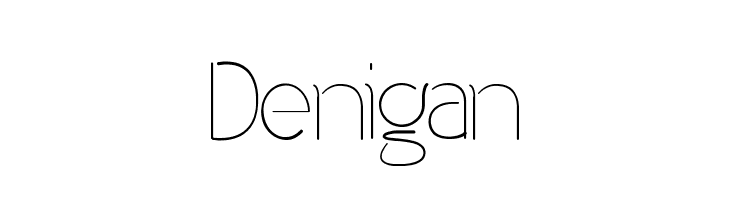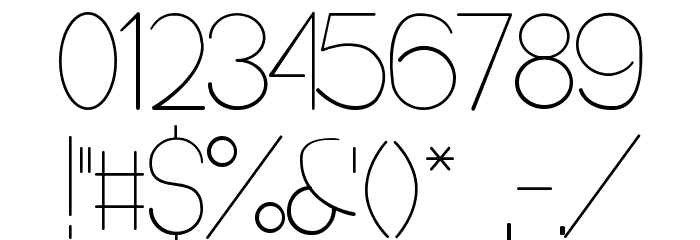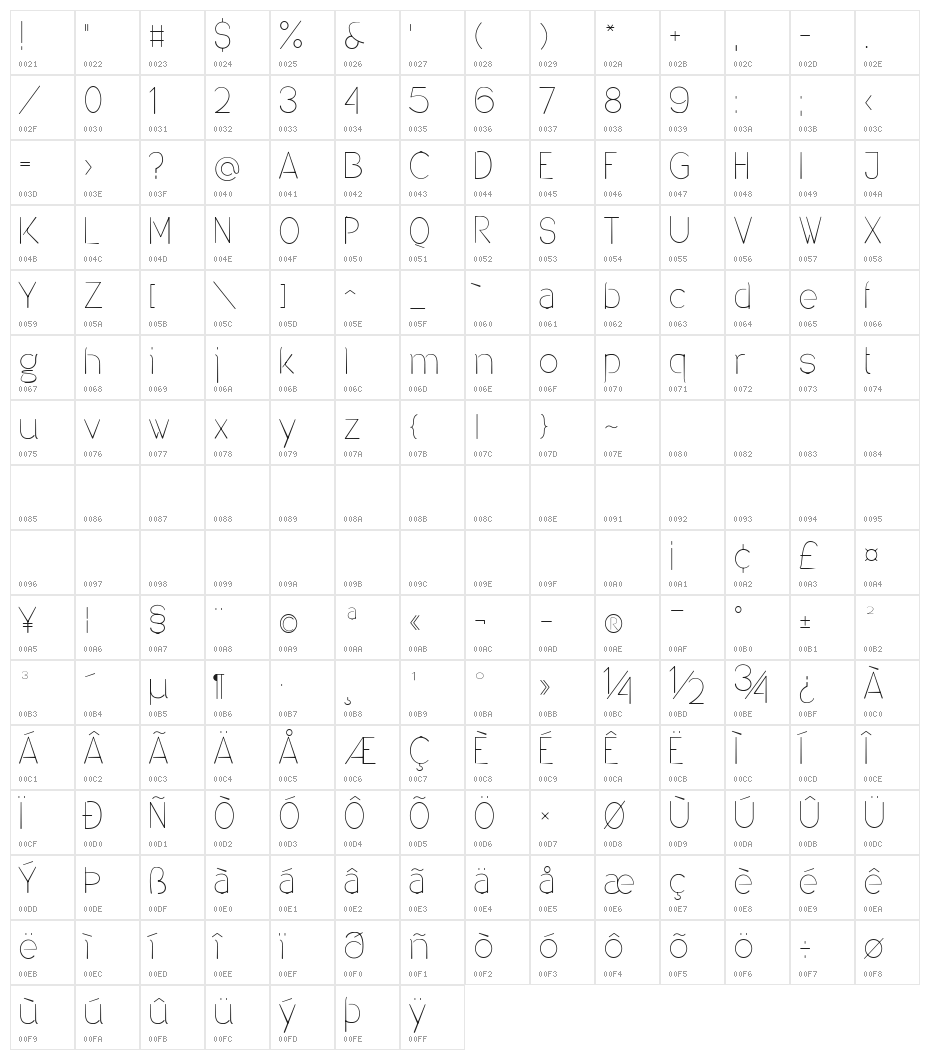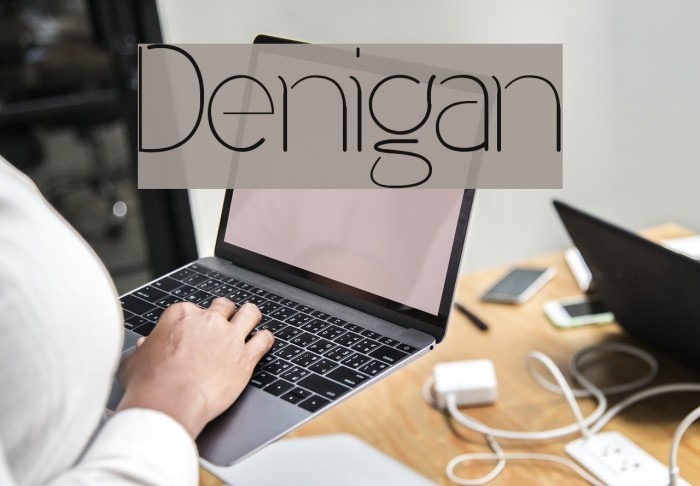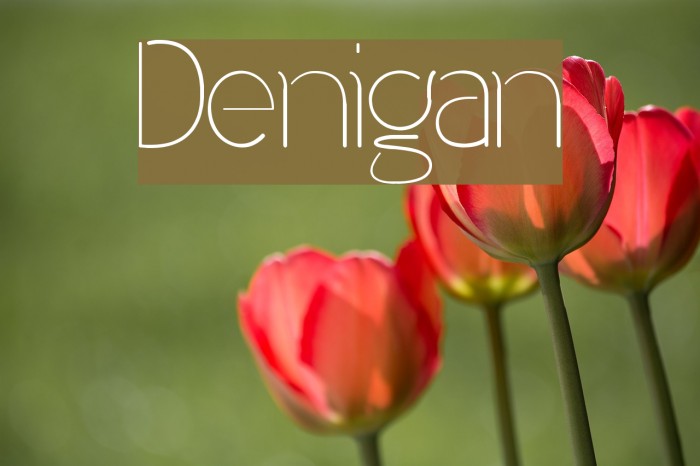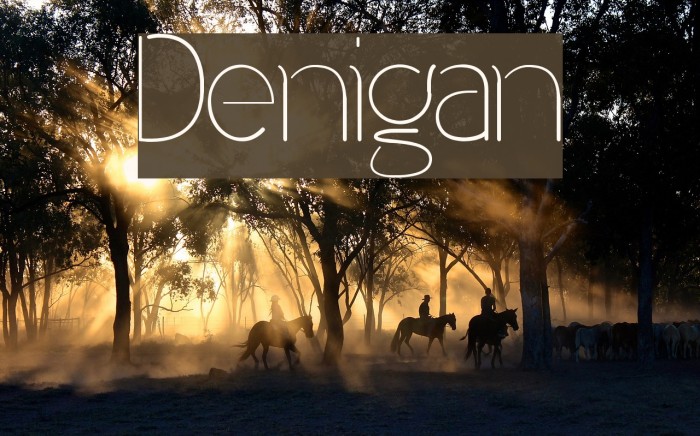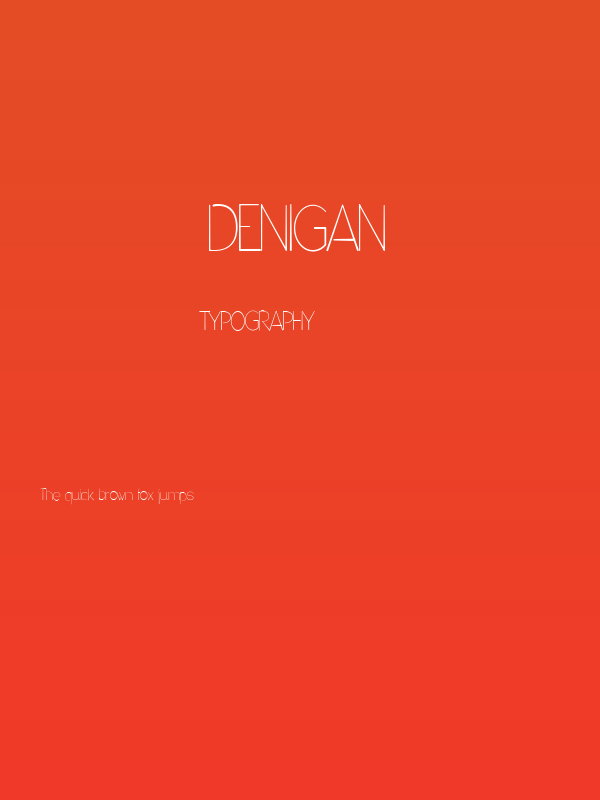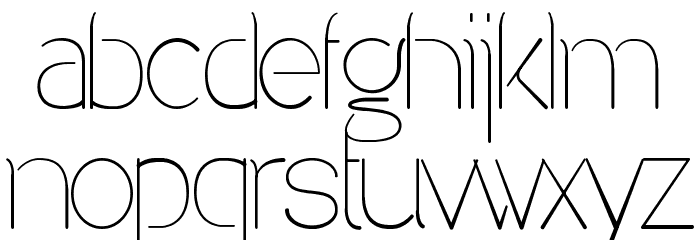
Denigan Font
Denigan Description
This font features a sleek and modern design with thin, elongated strokes that give it a sophisticated and contemporary appearance. The characters are crafted with a geometric precision, offering a clean and minimalist aesthetic. The uppercase letters are tall and narrow, while the lowercase letters maintain a consistent style, enhancing readability. Numbers and special characters are designed to match the overall sleek look, making them ideal for modern design projects. The font's thin lines and open spaces create a sense of elegance and clarity, suitable for a variety of applications.
| Proposed Projects | Ideal for branding, fashion magazines, luxury product packaging, and modern web design. |